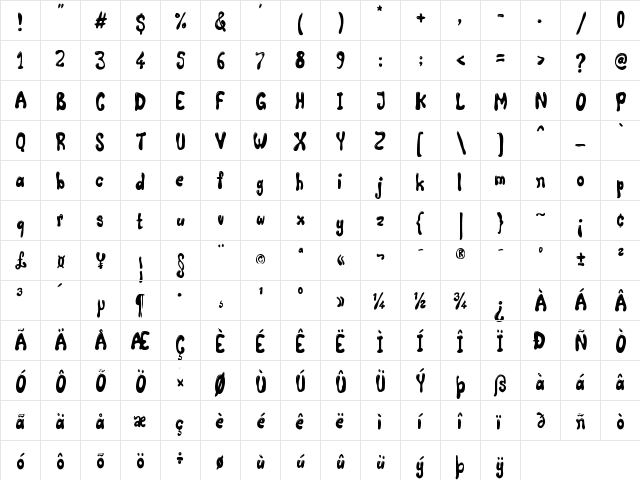
Comic Land Highlight Regular
Design Context for Comic Land Highlight Typeface
Comic Land Highlight trades formality for fun, with bouncy, characterful letterforms that bring warmth and energy to any project.
Font Pairing: Pairs well with a rounded or humanist sans for body copy, maintaining the friendly tone without relying on Comic Land Highlight to carry extended reading.
Pro Tip: Avoid using Comic Land Highlight for long passages of text — it works best for headlines, labels, and short calls to action.